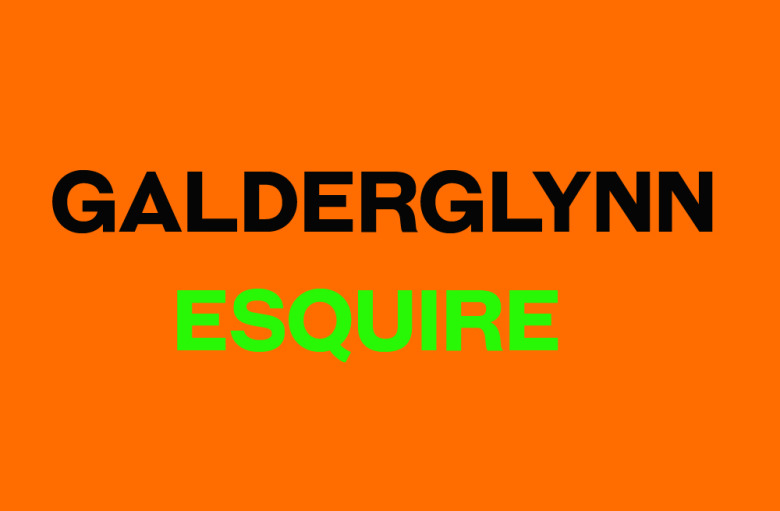
Galderglynn Esquire Font Family
Galderglynn Esquire Font
Galderglynn Esquire is a mash-up of multiple sans-serif types from the nineteenth century. For a version with lowercase, check out Galderglynn Esquire.
Galderglynn Esquire Font Family